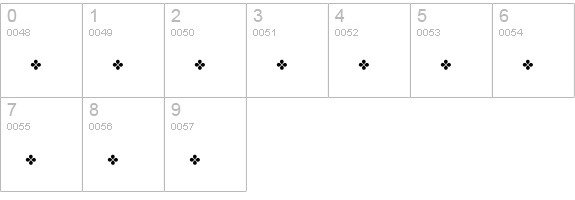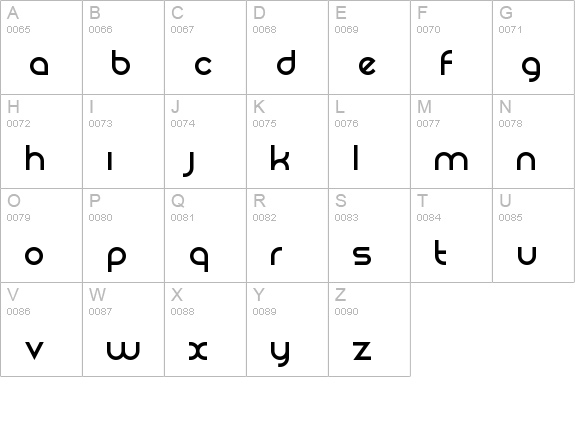
Rezland Logotype Font Font Details
Rezland Logotype Font is a stunning display font that exudes elegance and sophistication. This font is perfect for creating eye-catching logos, branding materials, and headlines with a touch of class. With its clean lines and exquisite letterforms, Rezland Logotype Font captures attention and leaves a lasting impression on any design. Its unique and modern style adds a contemporary edge to any project, making it a versatile choice for both digital and print applications. But what sets Rezland Logotype Font apart is that it is not only visually appealing, but also freely available to download. Yes, you read that right! This incredible font can be yours for free, making it accessible to designers and creatives of all levels. To get your hands on Rezland Logotype Font, simply visit FontsMarket.com and start exploring the world of possibilities this font has to offer. With its wide range of glyphs and characters, you can easily customize and personalize your designs to suit your needs. So why wait? Discover the beauty and versatility of Rezland Logotype Font today and elevate your designs to new heights. Download it for free at FontsMarket.com and let your creativity soar.